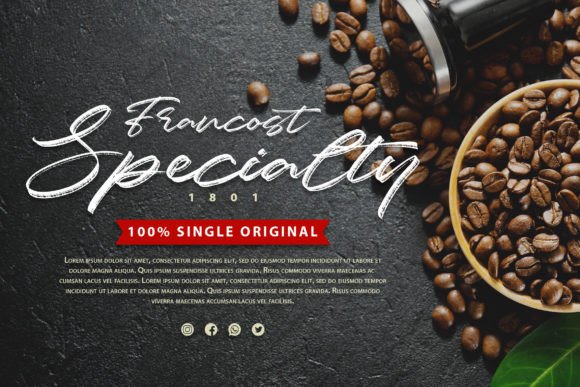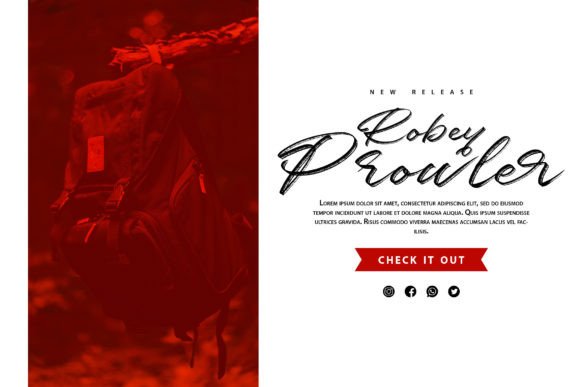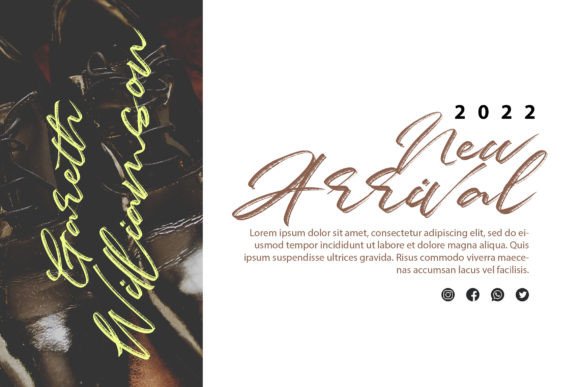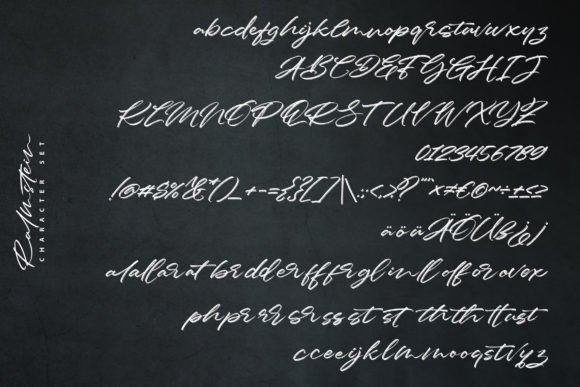
Introduction to Ralmstein Font
Have you ever stared at a blank page, waiting for inspiration to strike? You’re not alone. Many designers face this challenge when working on a creative project, and it’s often the perfect moment to discover a game-changing design resource. That’s exactly what we’re excited to introduce you to – the Ralmstein Font.
This beautiful brush handwritten font boasts a stunning calligraphy style that’s sure to elevate any project. Whether you’re crafting invitations, designing greeting cards, or creating branding materials, the Ralmstein Font is the perfect addition to your design toolkit. Its versatility and high quality make it an ideal choice for designers looking to add a touch of elegance and sophistication to their work.
Key Features of Ralmstein Font
- High-quality design: Ralmstein Font offers a unique and stylish design perfect for creative projects.
- Unique characteristics: Ralmstein Font features a distinctive style and aesthetic, setting it apart from other fonts in its category.
- Perfect for creative projects: This font is ideal for use in logos, branding materials, and other design elements where a unique and stylish look is desired.
Honest Review: Ralmstein Font
Here are some of the things that I love about the Ralmstein Font:
- High-quality design that’s perfect for modern projects
While the Ralmstein Font is an excellent addition to any designer’s toolkit, there are a few limitations that I’ve noticed:
- It’s not suitable for projects that require a lot of customization
Tips for Getting the Most Out of Ralmstein Font
To get the most out of the Ralmstein Font, experiment with different font sizes, colors, and layering techniques. You can also use the font in combination with other design elements to create a unique and visually appealing design.
The Ralmstein Font is perfect for creative projects such as logos, posters, and social media graphics. It’s also great for use in presentations, documents, and other design projects where a unique and eye-catching font is required.
Comparison to Ralmstein Font: Great Vibes has a more elegant and refined feel compared to Ralmstein Font, which is more bold and edgy.